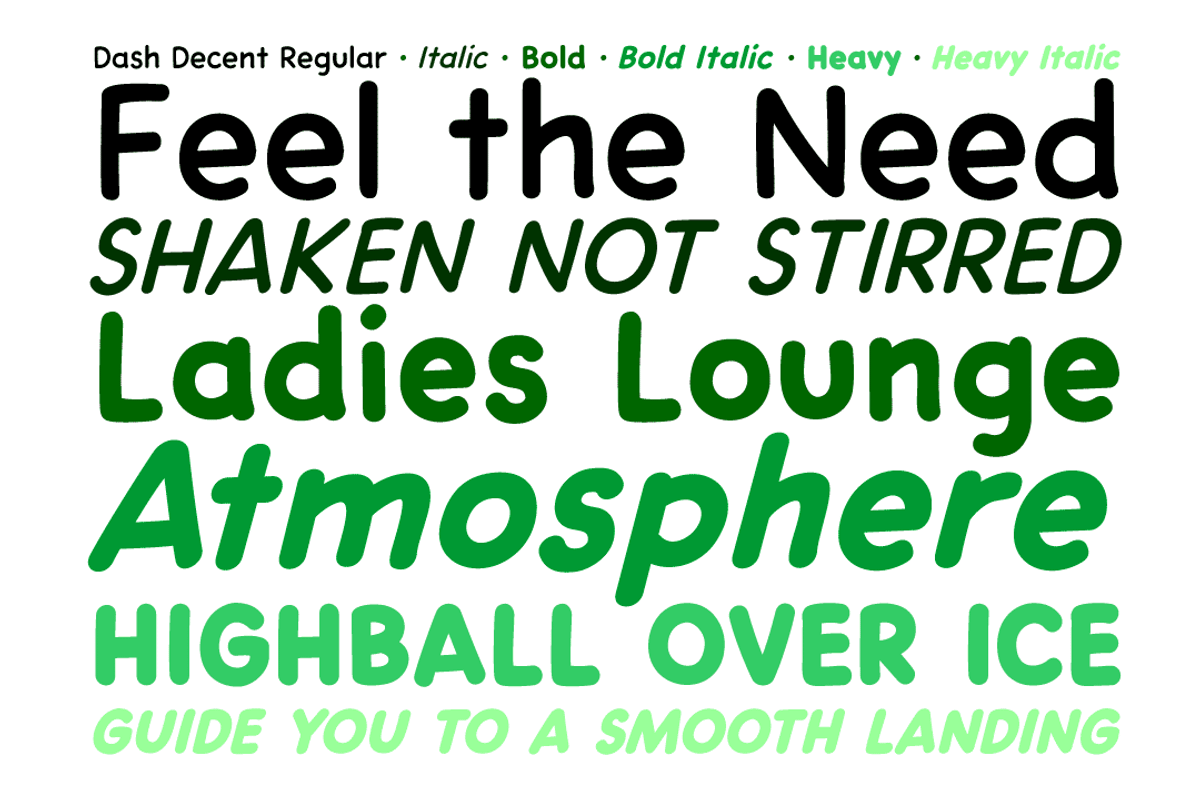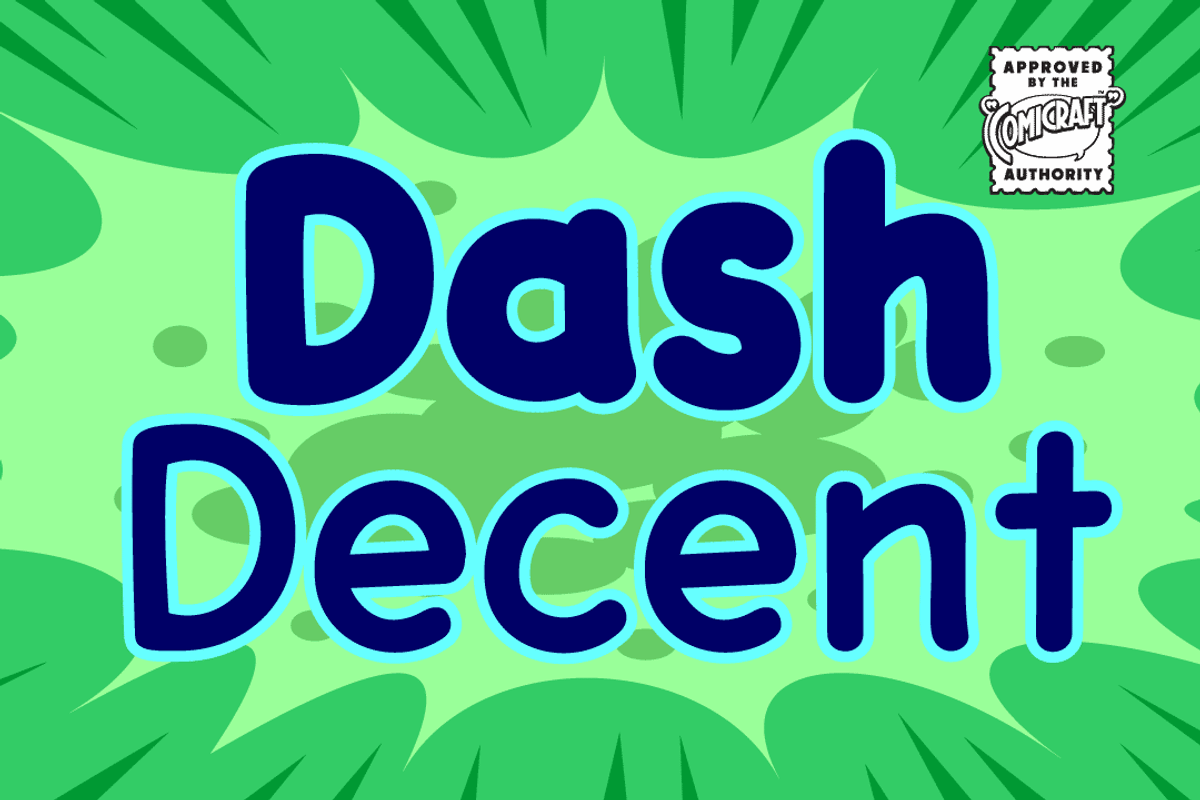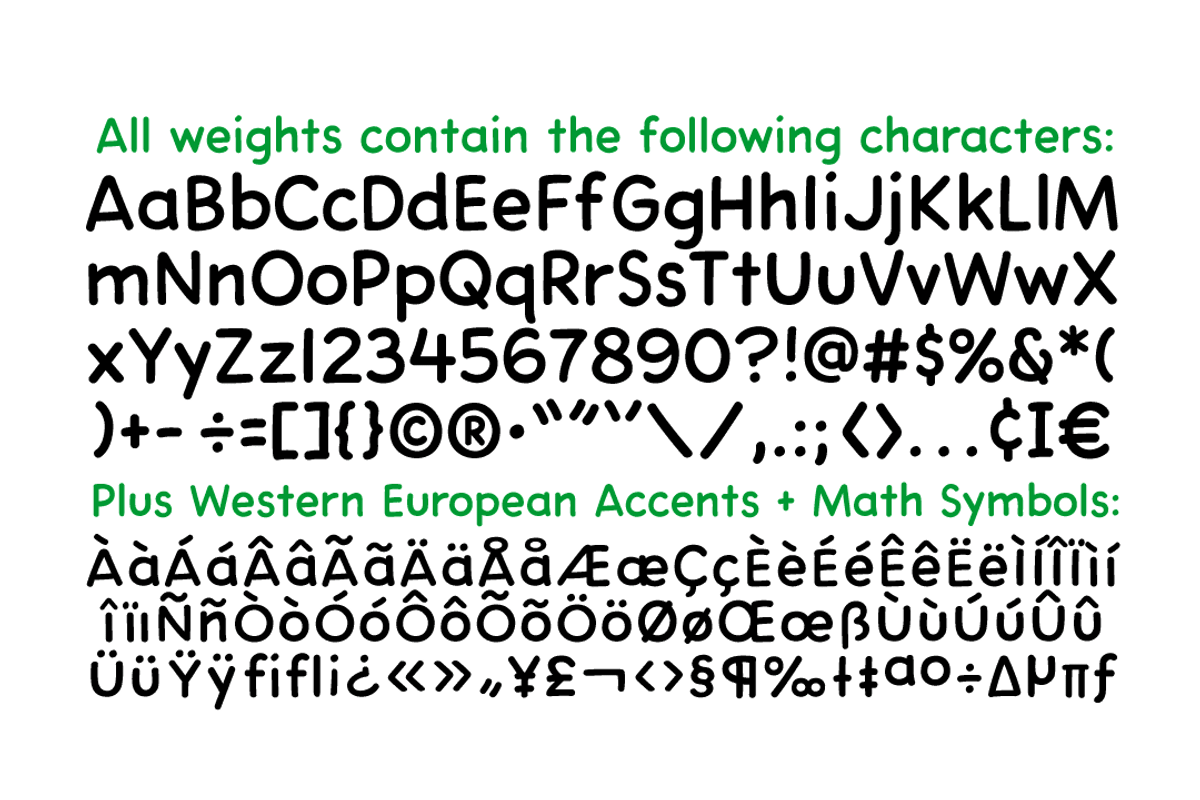
Dash Decent
Are you feeling the need...the need for speed? Dash Decent is a top flight executive font that won't leave you high and dry... Unless we're talking dry martinis in the air stewardess's lounge. Our speedball cocktail is guaranteed to get you up into the atmosphere and guide you in for a smooth landing. And that really is dash decent of us, don't you think? Splendid, I'd say!